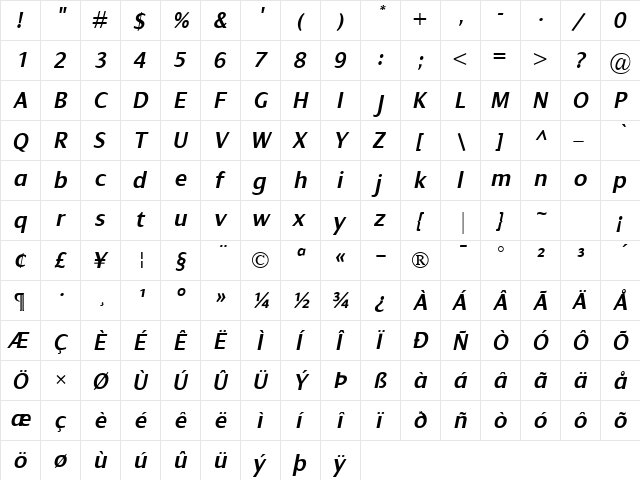
Dialog SemiBold Italic Font Preview
Dialog SemiBold Italic
Design Context for Dialog SemiBold Typeface
Dialog SemiBold offers clean, dependable letterforms without strong stylistic allegiance, making it a practical choice for designers who need flexibility. Its italic angle brings a sense of urgency and motion to the letterforms. Its bold stroke weight gives it real presence on the page.
Pro Tip: Use Dialog SemiBold for emphasis, pull quotes, and subheadings where its slanted energy can add rhythm to the layout.